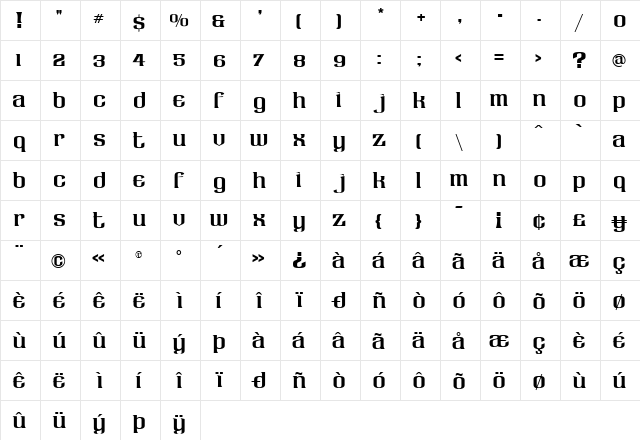
LHF Claretian Regular
| Foundry | Letterhead Fonts & Rob Cooper |
| Designer | Rob Cooper |
Design Context for LHF Claretian Typeface
LHF Claretian offers clean, dependable letterforms without strong stylistic allegiance, making it a practical choice for designers who need flexibility.